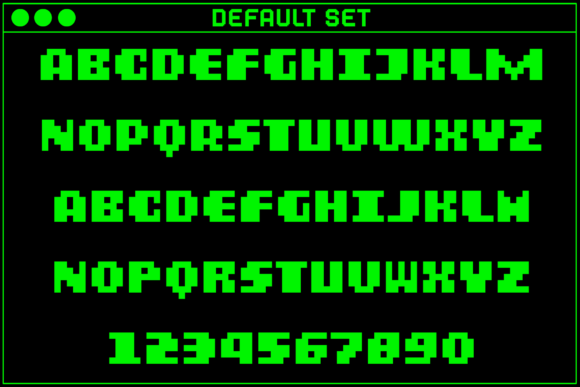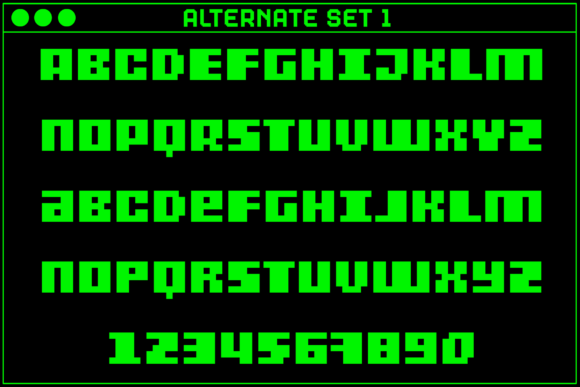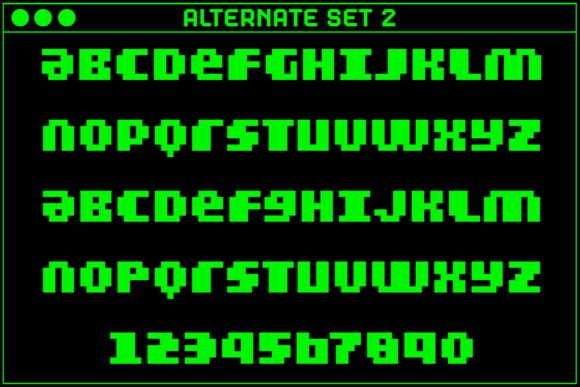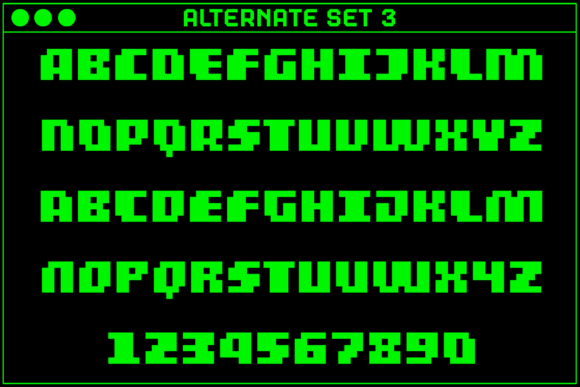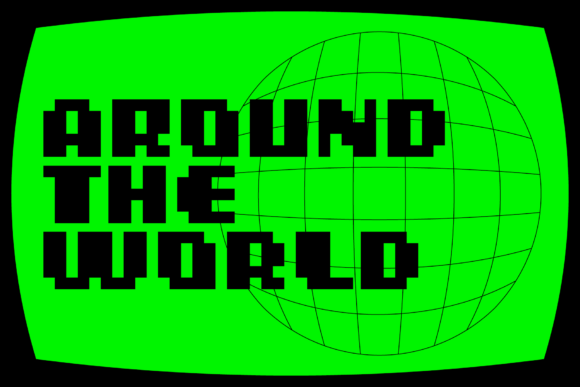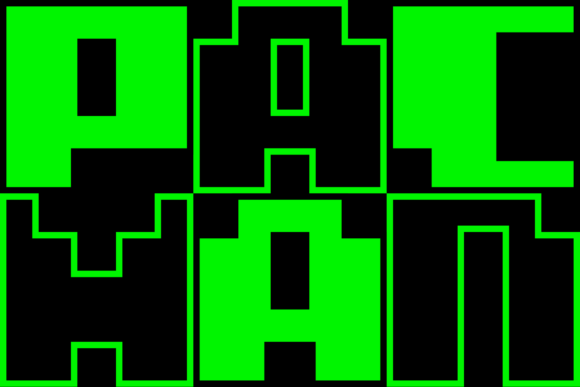
Introduction to MultiType Pixel Display Bold Font
Have you ever been stuck on a design project, struggling to find the perfect font to bring your creative vision to life? I know I have. Remember that one time you spent hours scouring the web for the perfect pixelated font to add a retro touch to your design? Yeah, that was me too.
Well, I’m excited to share with you a game-changing design resource that’s about to become your new go-to: the MultiType Pixel Display Bold Font. This cool, uniquely shaped, pixelated display font is the perfect addition to any design project. Whether you’re working on a digital project with a transparent background or a print design, MultiType Pixel Display Bold Font is sure to add a bold and trendy touch.
Key Features of MultiType Pixel Display Bold Font
- MultiType Pixel Display Bold Font is a high-quality design resource that offers a wide range of characters, making it perfect for creative projects.
- The font features a bold and modern design with a transparent background, making it easy to use on any background.
- It includes a wide range of characters, including uppercase and lowercase letters, numbers, and punctuation marks, making it a great choice for any creative project.
- MultiType Pixel Display Bold Font is a unique and creative design resource that is perfect for anyone looking to add a bold and modern touch to their project.
Honest Review: MultiType Pixel Display Bold Font
I recently stumbled upon the MultiType Pixel Display Bold Font while searching for a high-quality design resource for a creative project. I was blown away by its crisp and modern aesthetic, making it perfect for digital applications and websites.
- ✨ High-quality design with a bold and pixelated feel, ideal for retro or futuristic themes.
- ✨ Transparent background, allowing for seamless integration with any design background.
- ✨ Highly versatile, suitable for a wide range of creative projects, from digital art to graphic design.
- ⚠️ Limited character set, which may not be suitable for extensive text-based projects.
- ⚠️ May not be ideal for print design, as the pixelated effect can be overwhelming on physical materials.
Overall, I’m thoroughly impressed with the MultiType Pixel Display Bold Font. Its unique design and versatility make it a valuable resource for any designer looking to add a touch of modernity to their project. Just be mindful of its limitations and consider the context in which it will be used.
Getting the Most Out of MultiType Pixel Display Bold Font
To get the most out of MultiType Pixel Display Bold Font, use it with a transparent background to create a bold and eye-catching design. This font is perfect for headings, titles, and other text elements that need to stand out.
MultiType Pixel Display Bold Font is commonly used in creative projects such as: